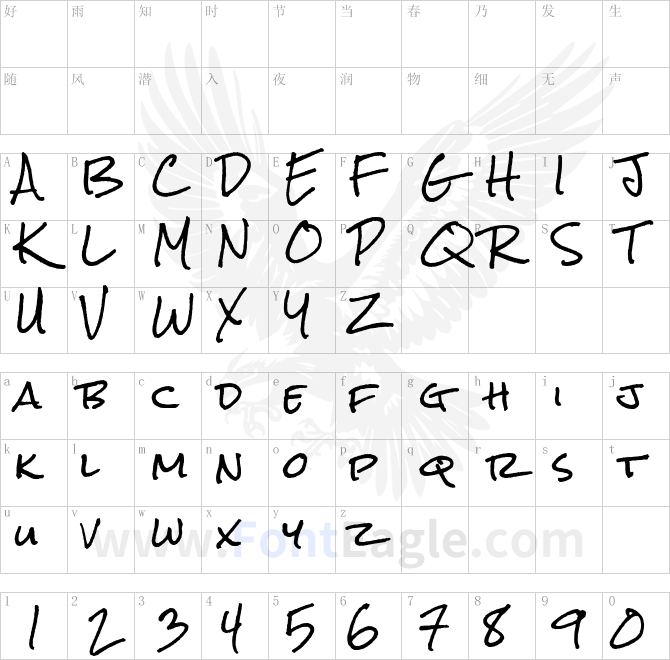
Rock-Salt is a great font, widely used in graphic design, single-page menu design, poster design and other fields, and is deeply loved by designers.Rock-Salt download.